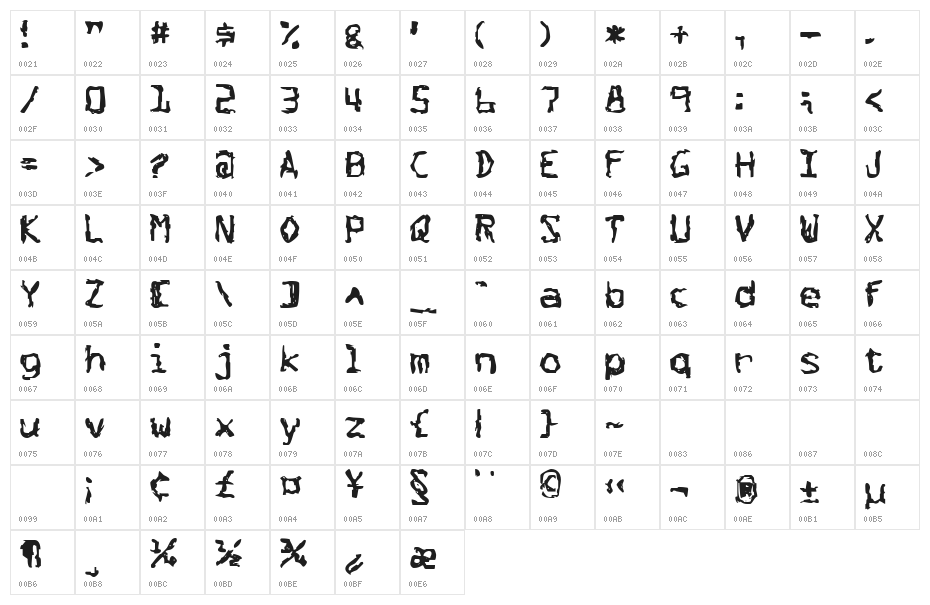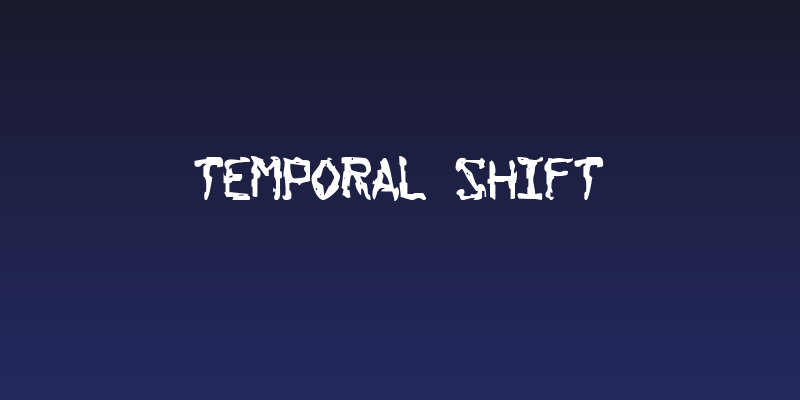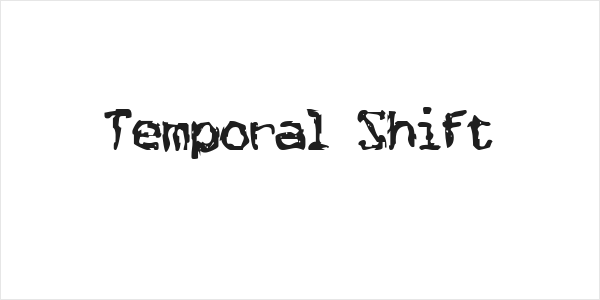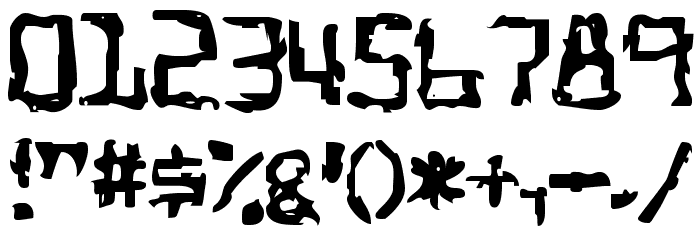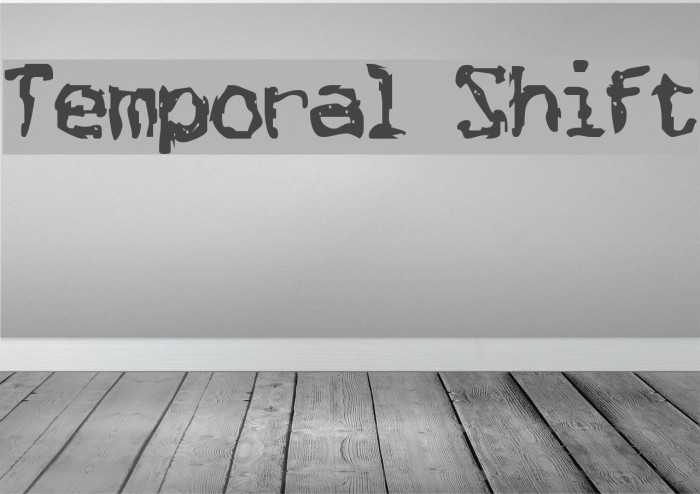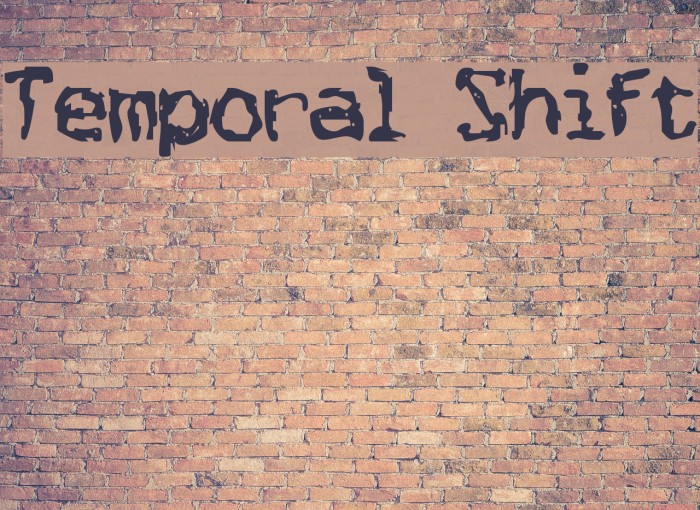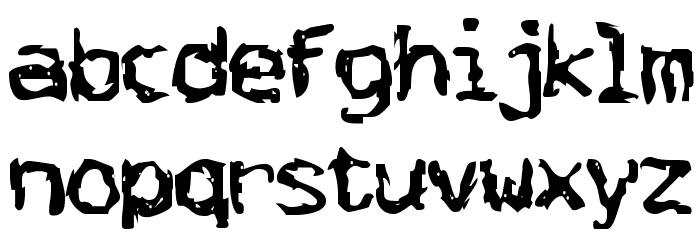
Temporal Shift Font
Temporal Shift Description
This font features a rugged and distressed appearance, reminiscent of hand-drawn or graffiti styles. The characters are bold and irregular, with uneven edges and a slightly chaotic feel. This gives the font a dynamic and energetic look, suitable for creative and edgy designs. The uppercase and lowercase letters maintain a consistent style, with the numbers and special characters following the same aesthetic. The font's unique style makes it stand out, adding a touch of rebellion and creativity to any project.
| Use Case | Logos, Posters, Headlines |
| Proposed Projects | Ideal for street art-inspired designs, music album covers, posters, and urban-themed branding. |